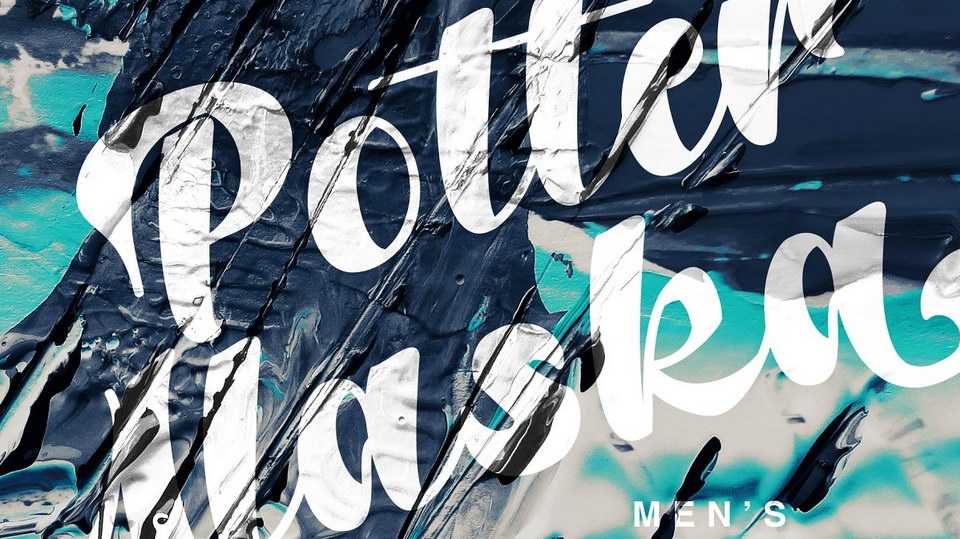
Download Potter Alaska font, a nice bold typeface, a stylish and quirky script created to look as close to a readable bold script as possible by including over a lot ligatures, titling, and swash.